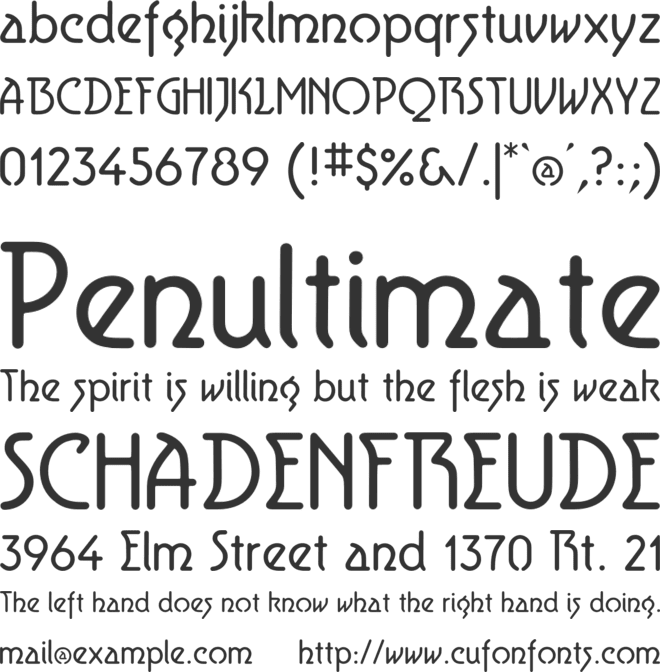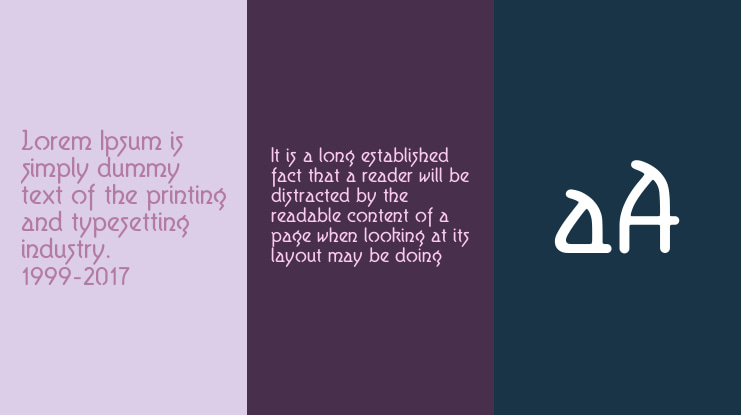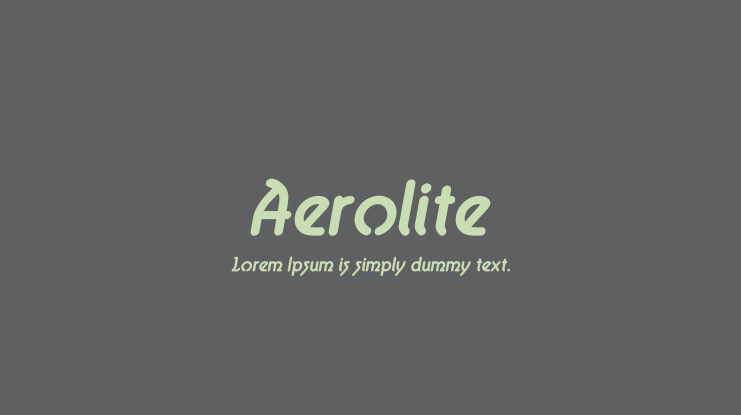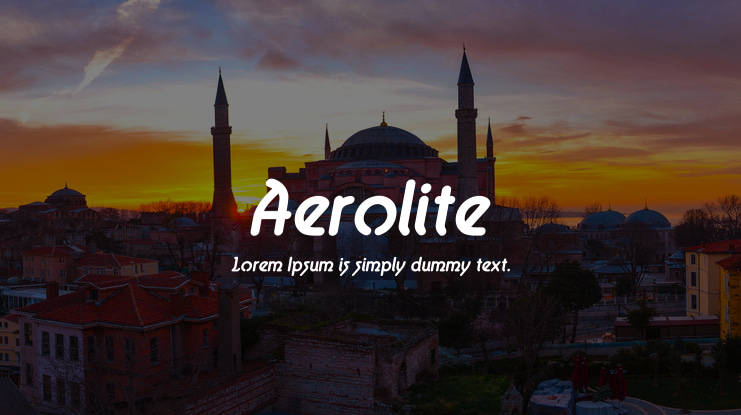
Aerolite Font Family
Aerolite is a font family designed by Jan Paul and digitized by Brian Kent in New York. (TTF and OTF files)
This typeface evokes the future, the past, time and space travel (aerolites are meteorites) and is also suited for works of a spiritual nature. The original complex font was designed by me for a Midnight Oil Album Cover, known affectionately as "The Blue Meanie" and has since been used and associated with Australian Surfing.
Aerolite Regular and Italic read well as body type for larger amounts of text, preferably 12pt and above.